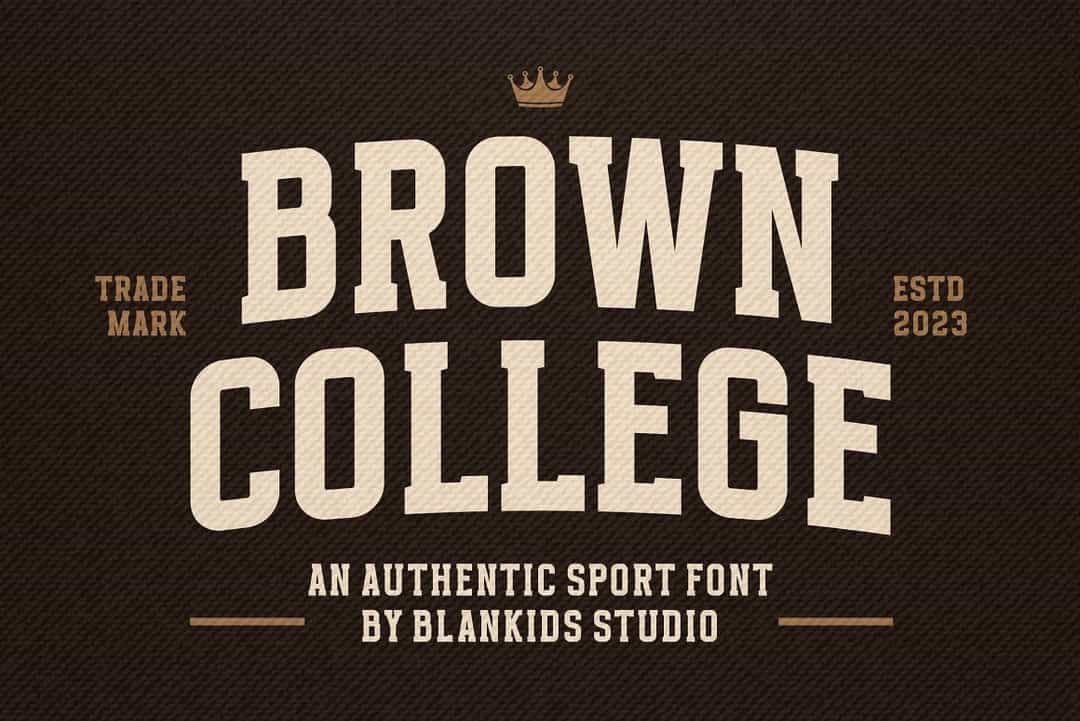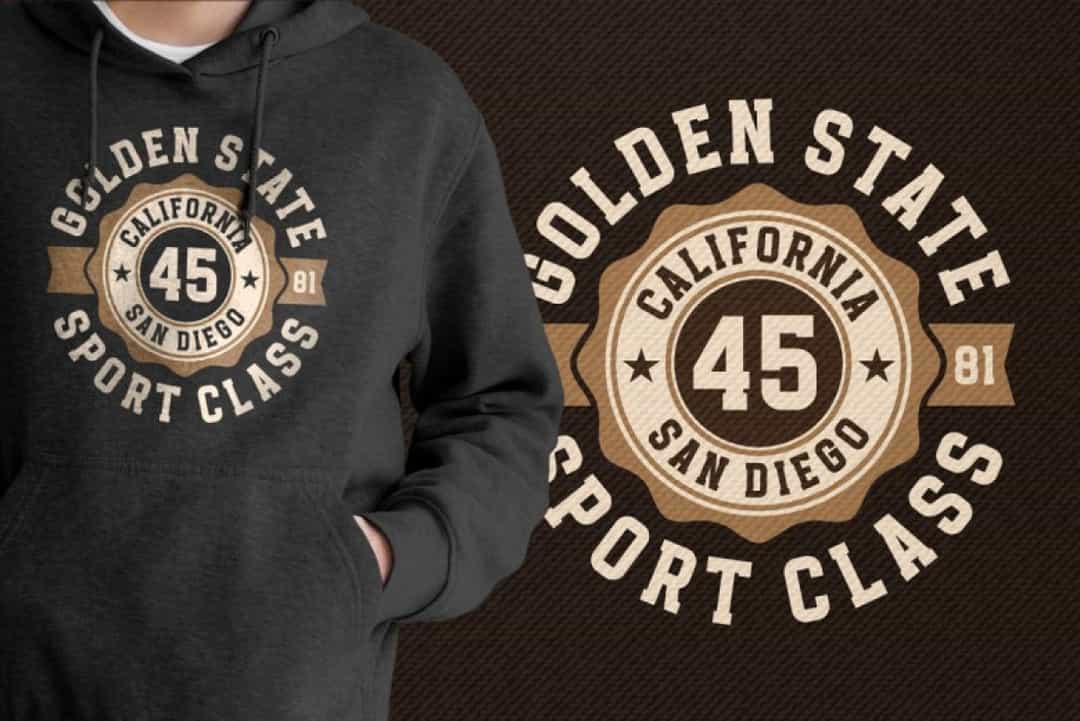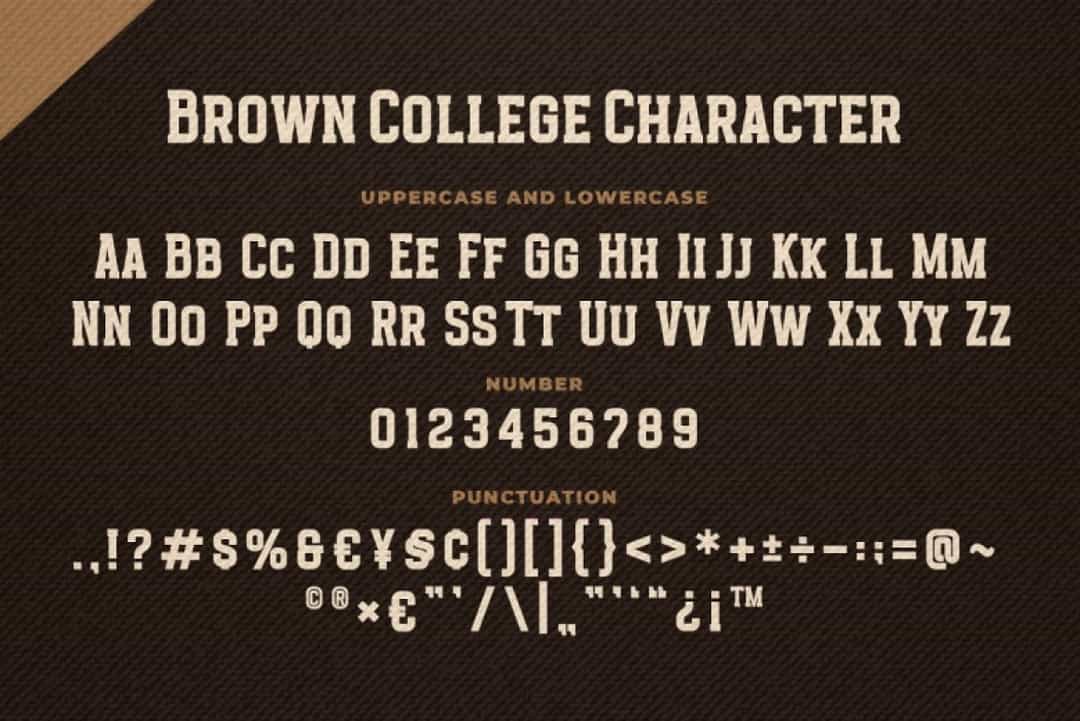
Discover Brown College Font, part of the Slab Serif Display Basic collection—a versatile and unique font perfect for adding a personal touch to your projects. Download it for free and enjoy crafting designs with style, from invitations to social media posts. This font is available exclusively for personal use, giving you the freedom to create without limits. Unlock your creativity with Brown College Font today!
Brown College is an authentic slab serif sport display font inspired by college typography, perfect for making designs more exciting and interesting. Crafted with great care to ensure aesthetic excellence, this font can be found anywhere from posters and book covers packaging designs, logotypes to merchandise designs and much more!